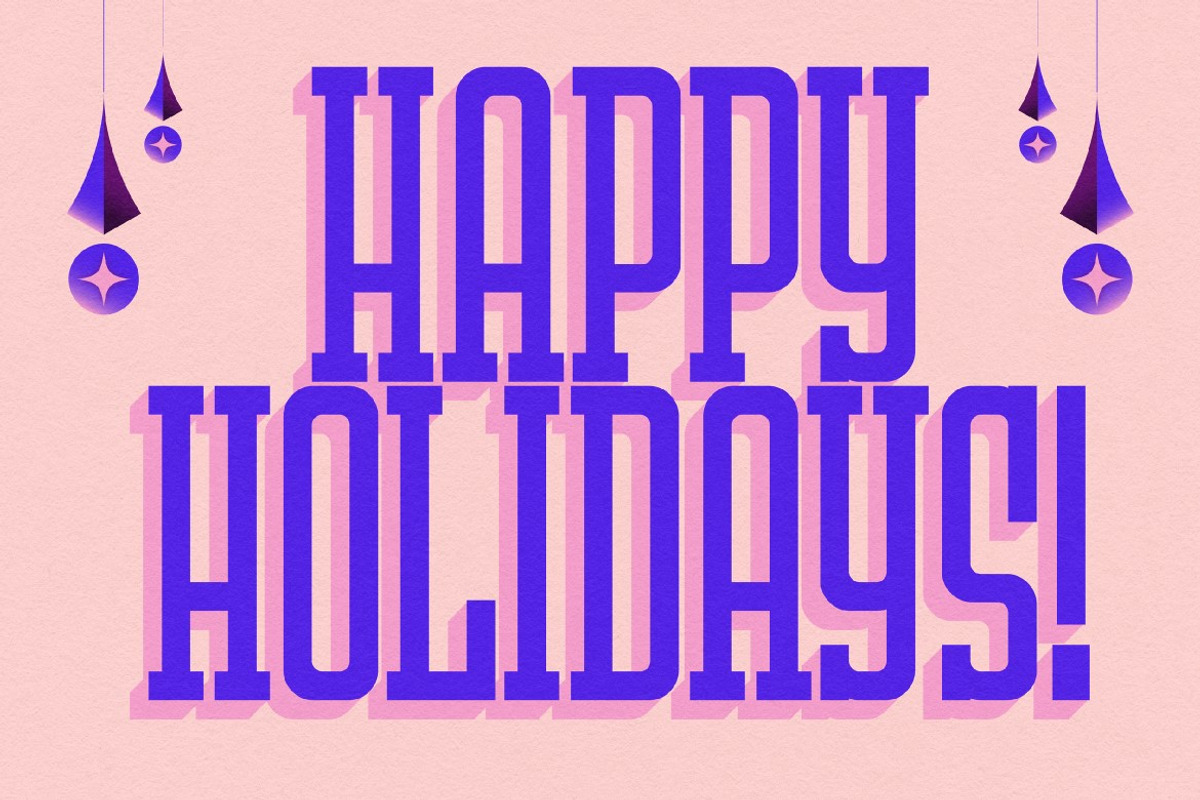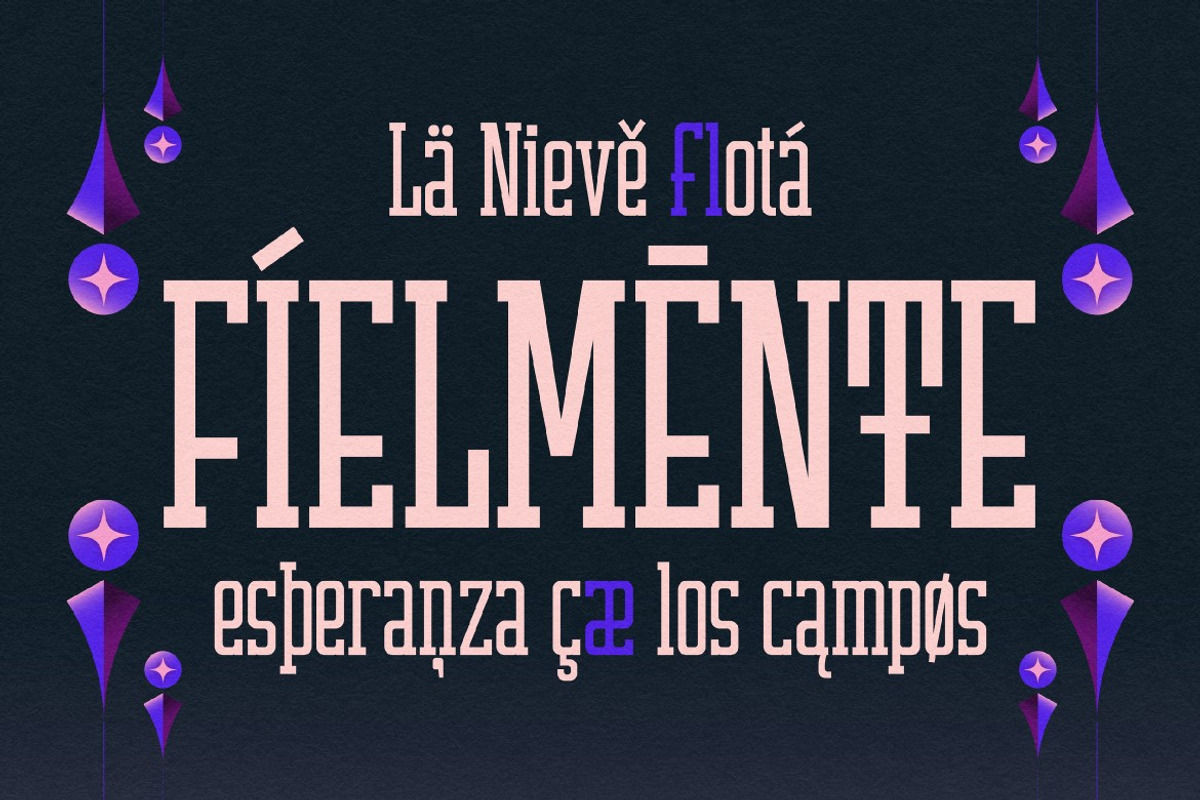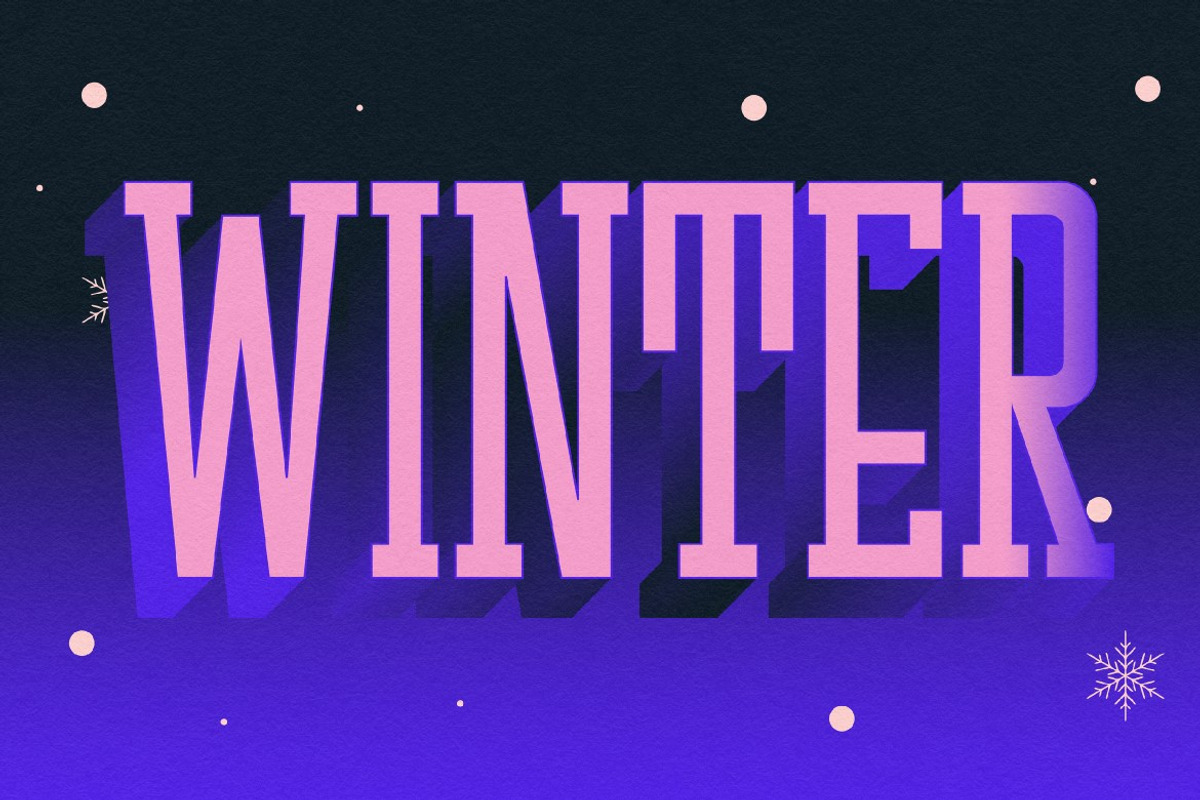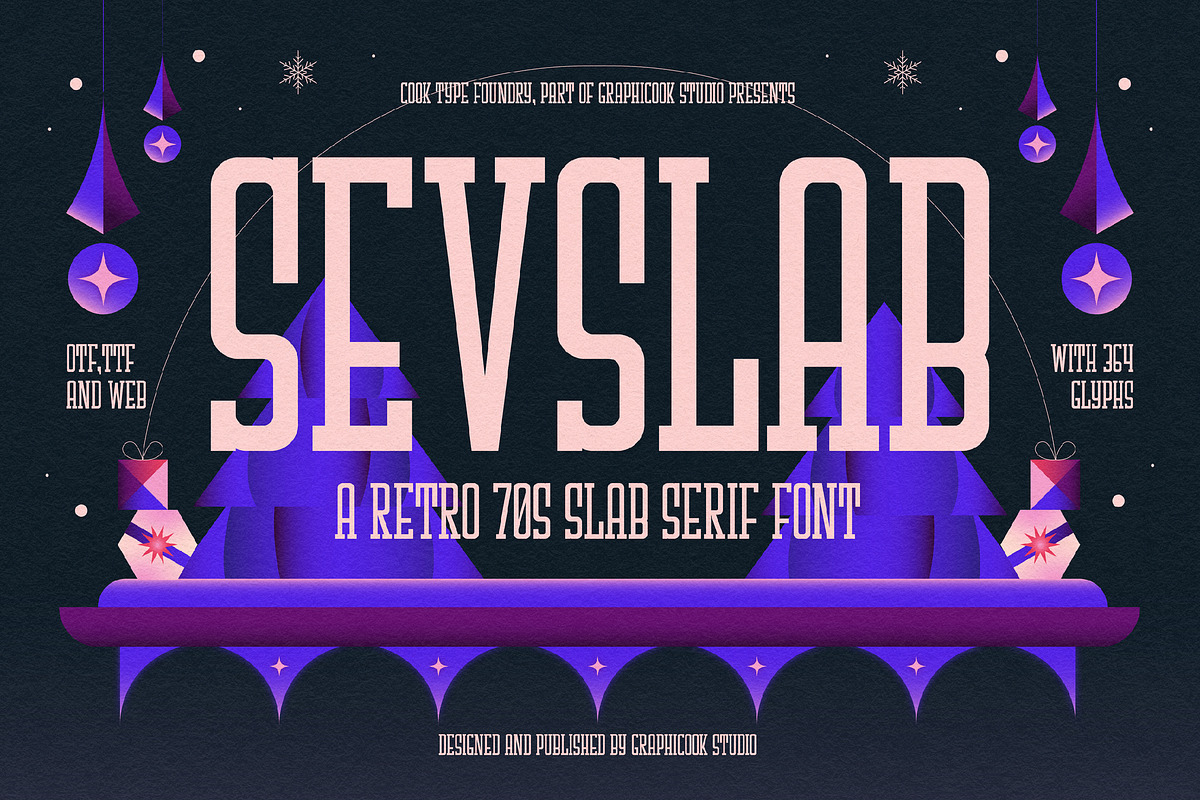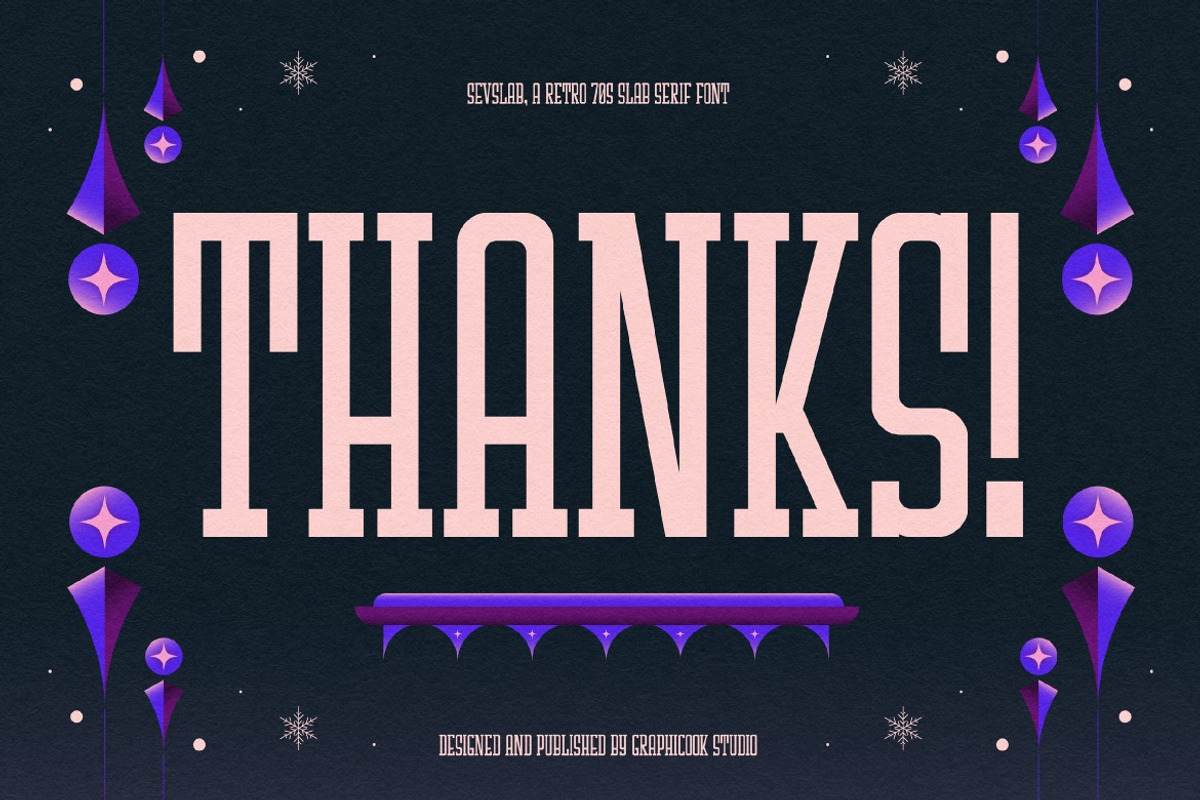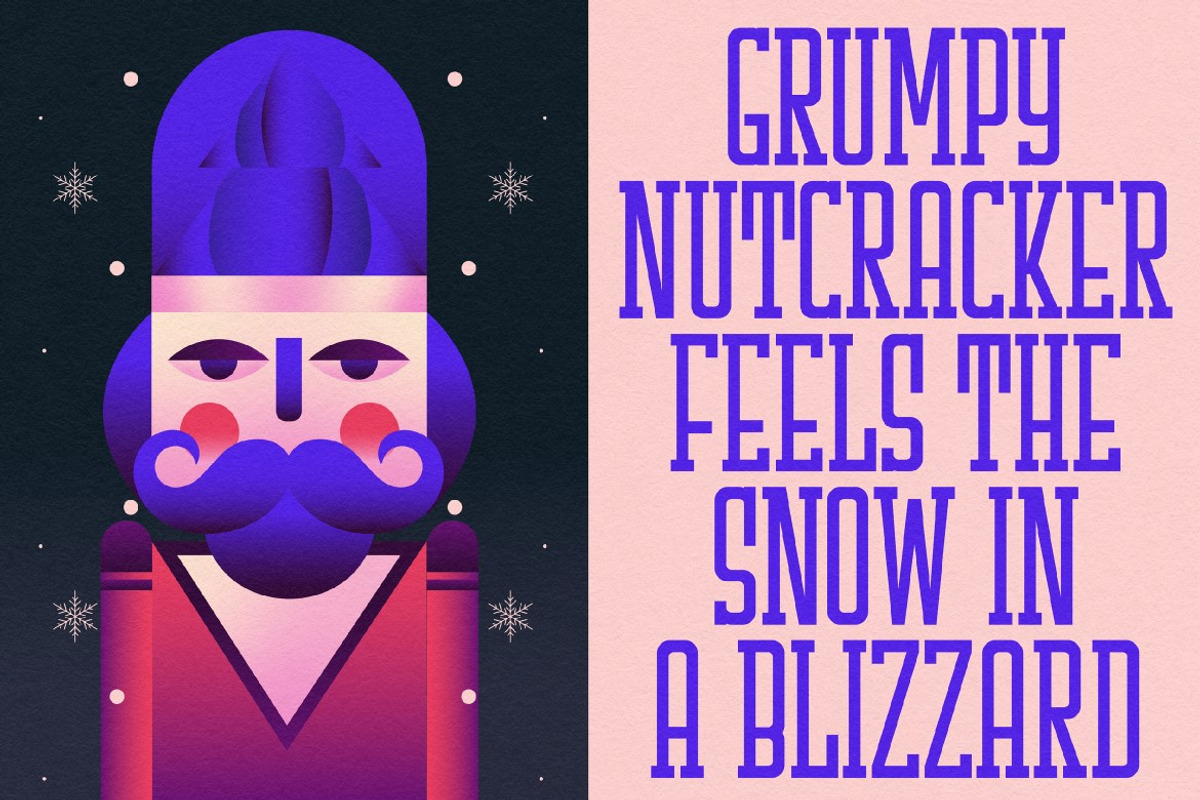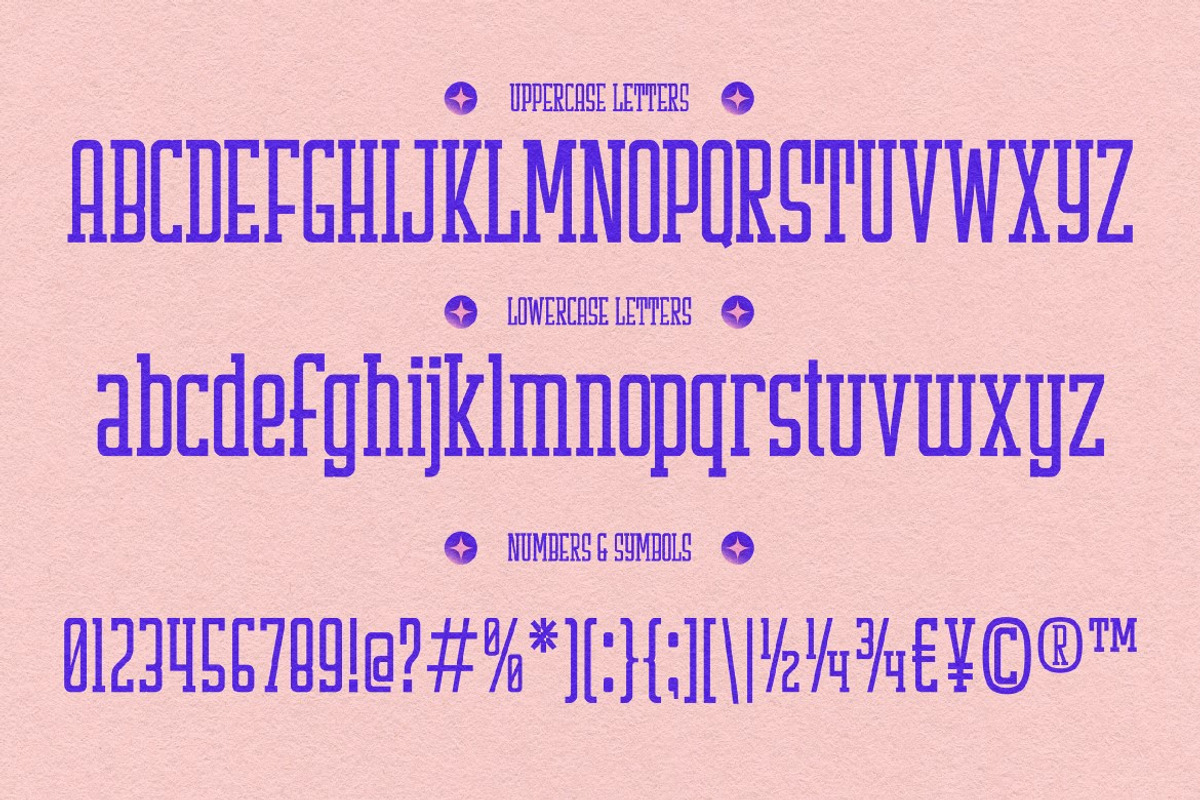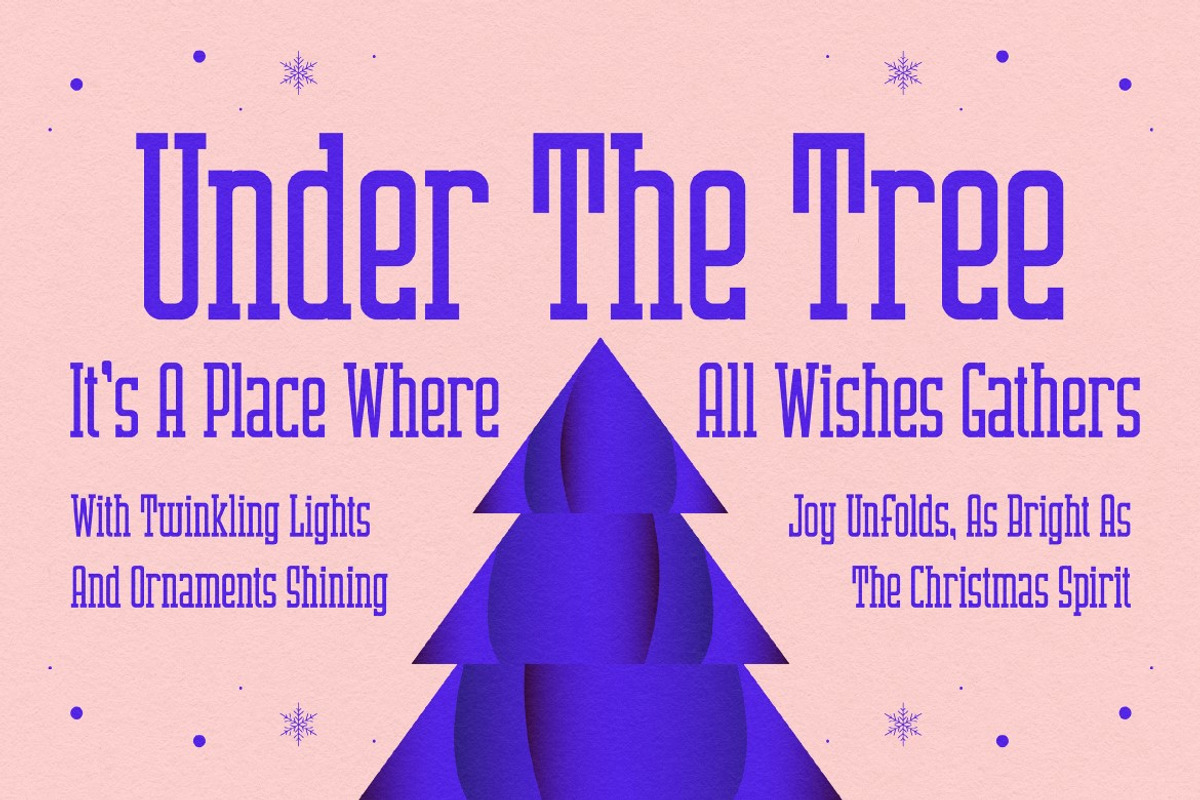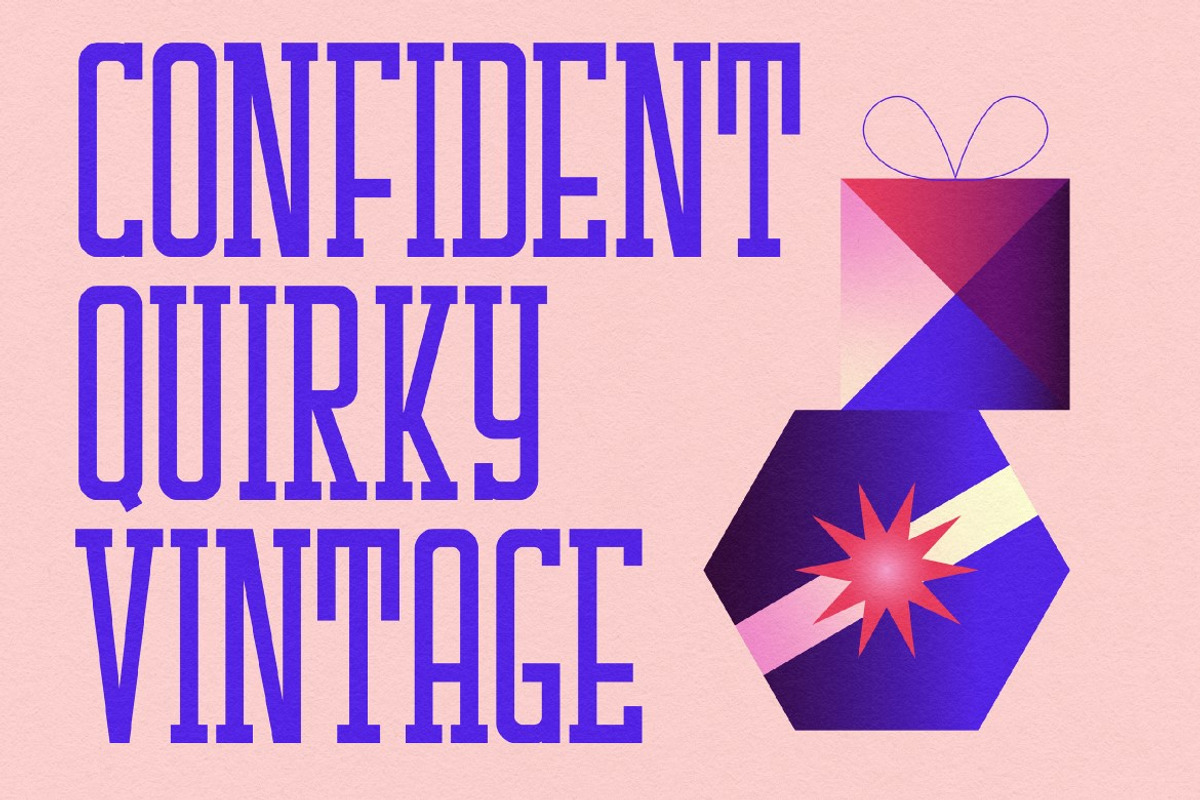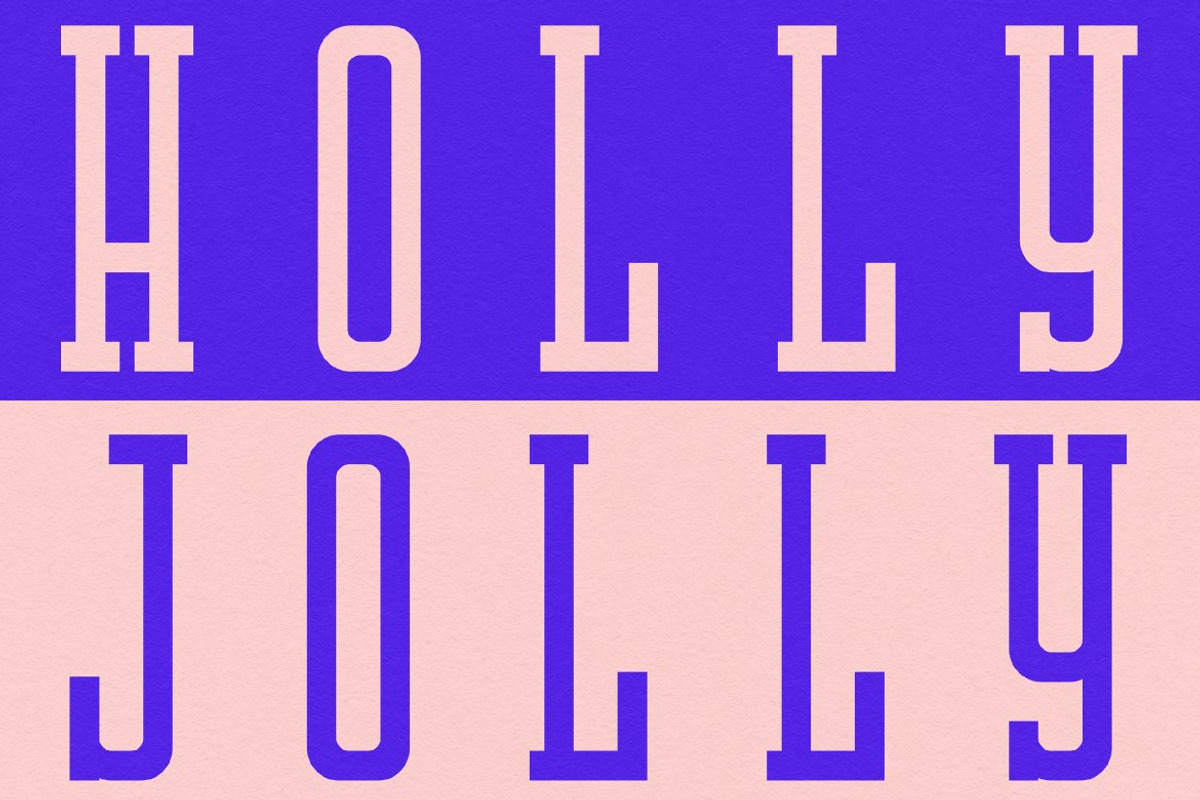
Sevslab
Sevlab is a condensed slab serif font with a festive Christmas theme. It is ideal for food packaging, posters, or branding and adds a cheerful holiday touch to any design.
Sevlab is perfect for headlines, logotypes, magazines, packaging, quotes, movies, games, cover albums, book covers, and flyers, it's a perfect solution for creating eye-catching designs that stand out in any context.